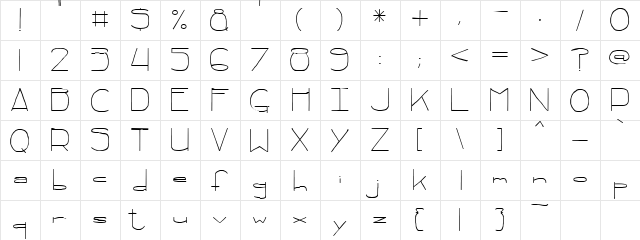
LDJ Hey Ya Regular
Design Context for LDJ Hey Ya Typeface
LDJ Hey Ya takes a measured approach to typography — its balanced proportions and neutral character make it a reliable workhorse for both digital and print work.